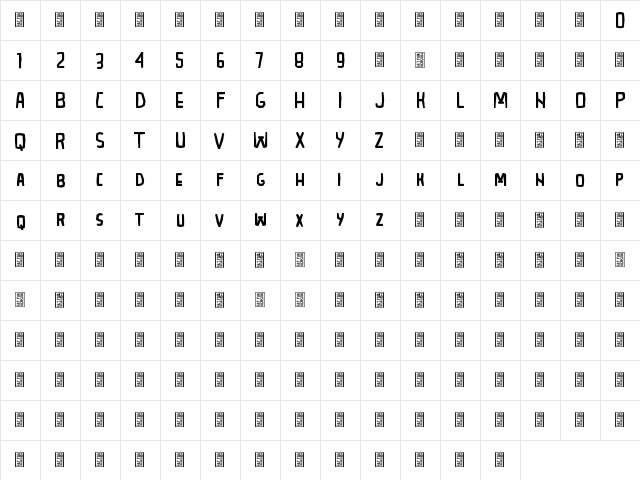
Mountrock DEMO Regular
| Designer | Trim Studio |
Design Context for Mountrock DEMO Typeface
Mountrock DEMO is a composed and adaptable typeface that performs quietly and consistently across a wide range of design contexts.